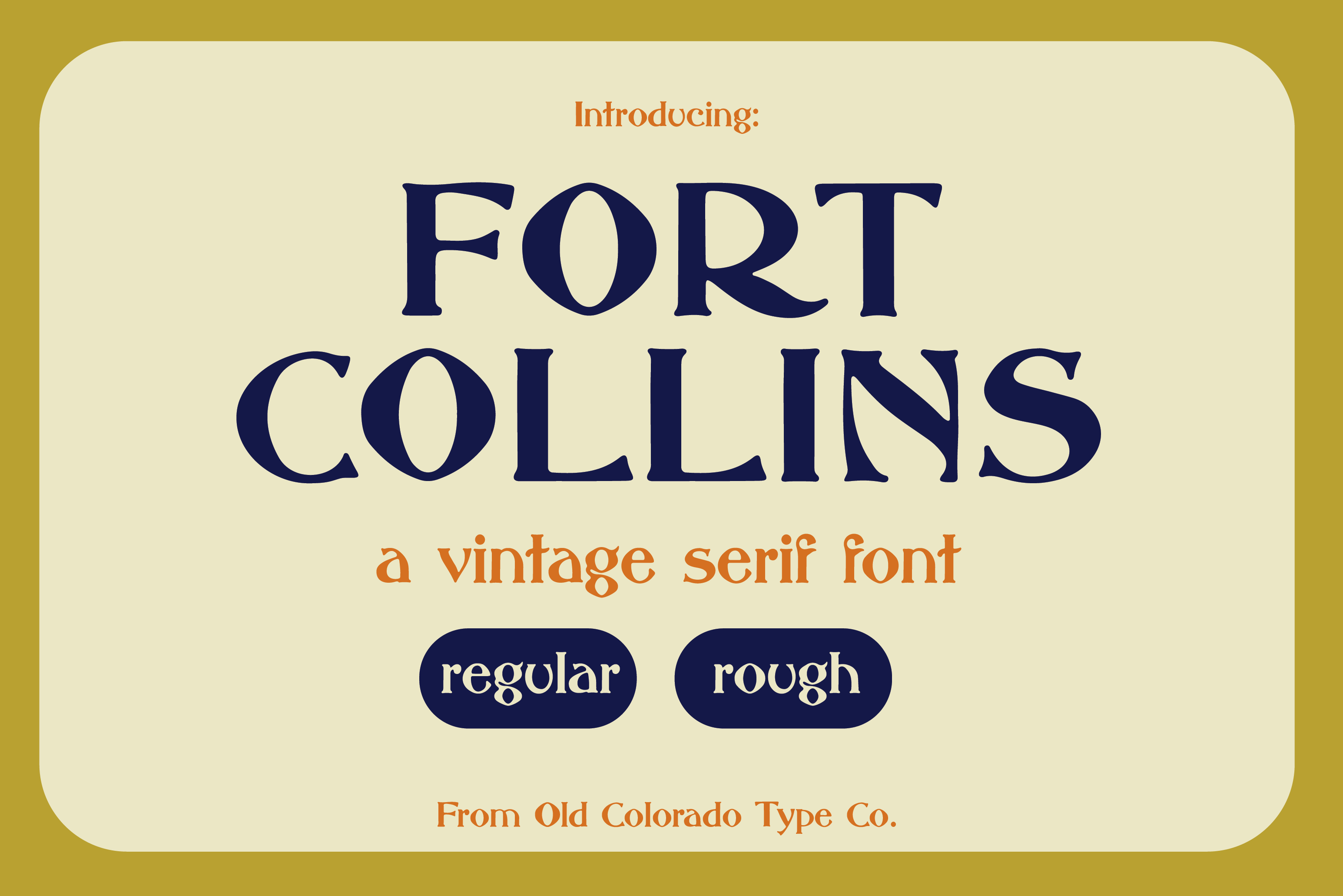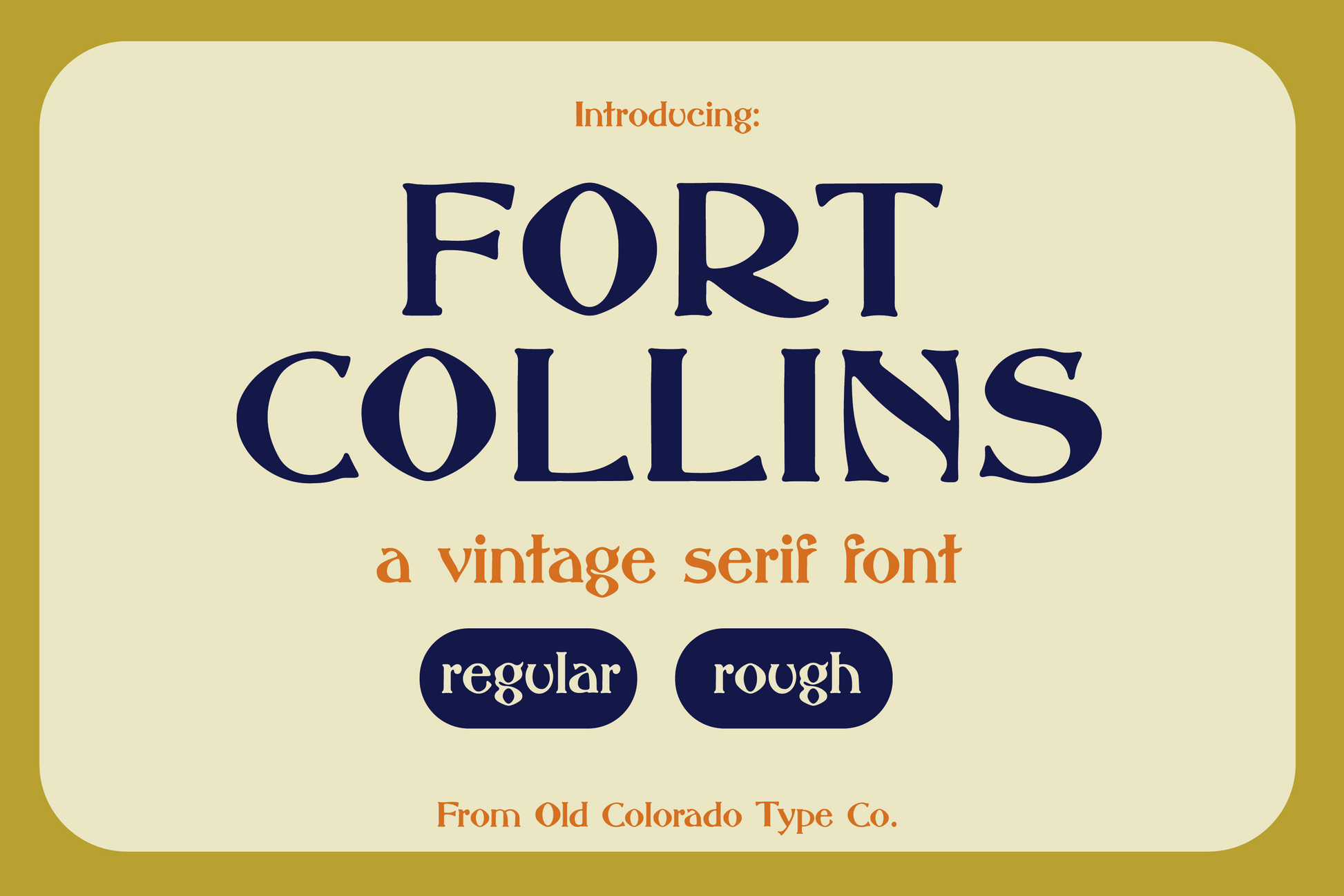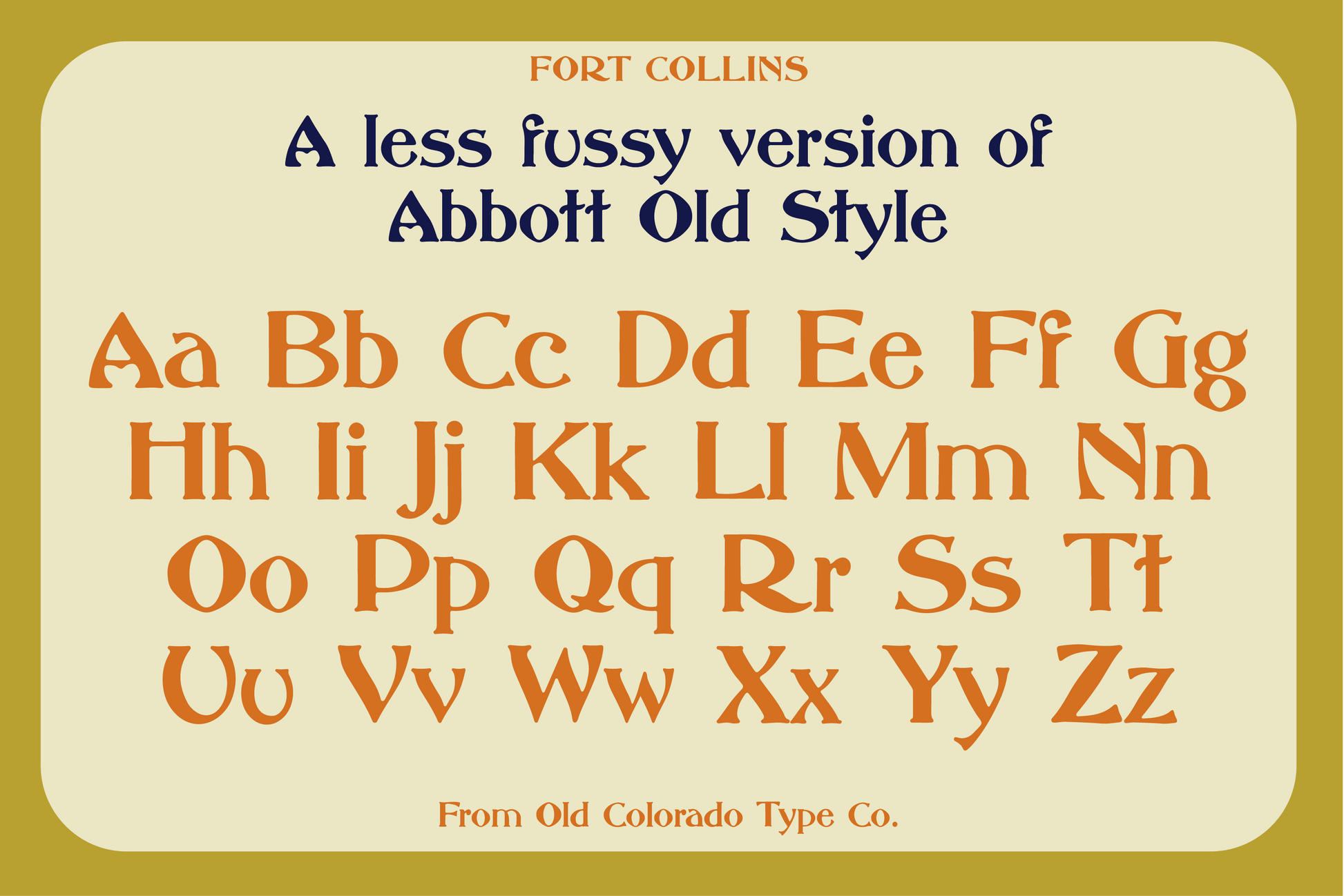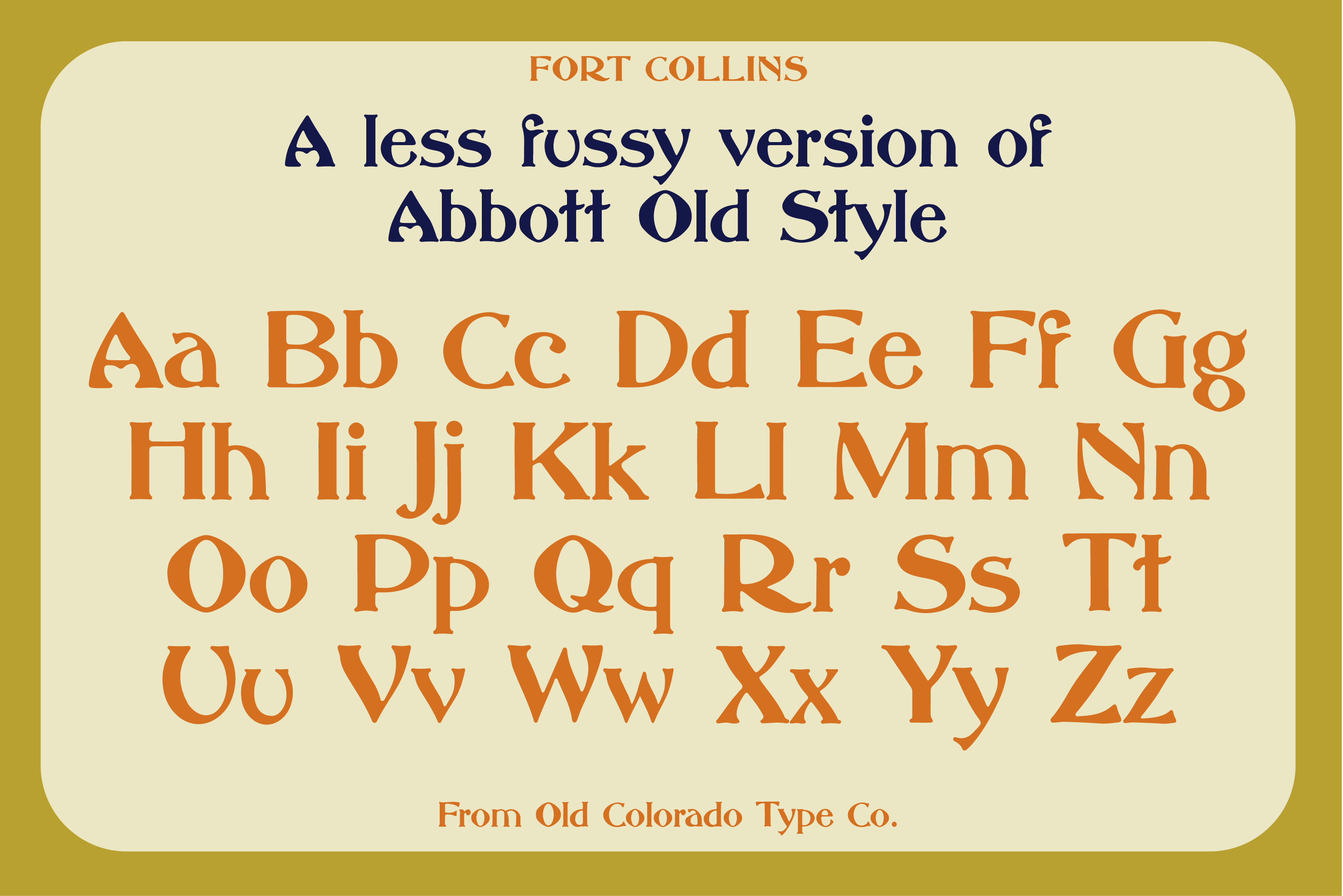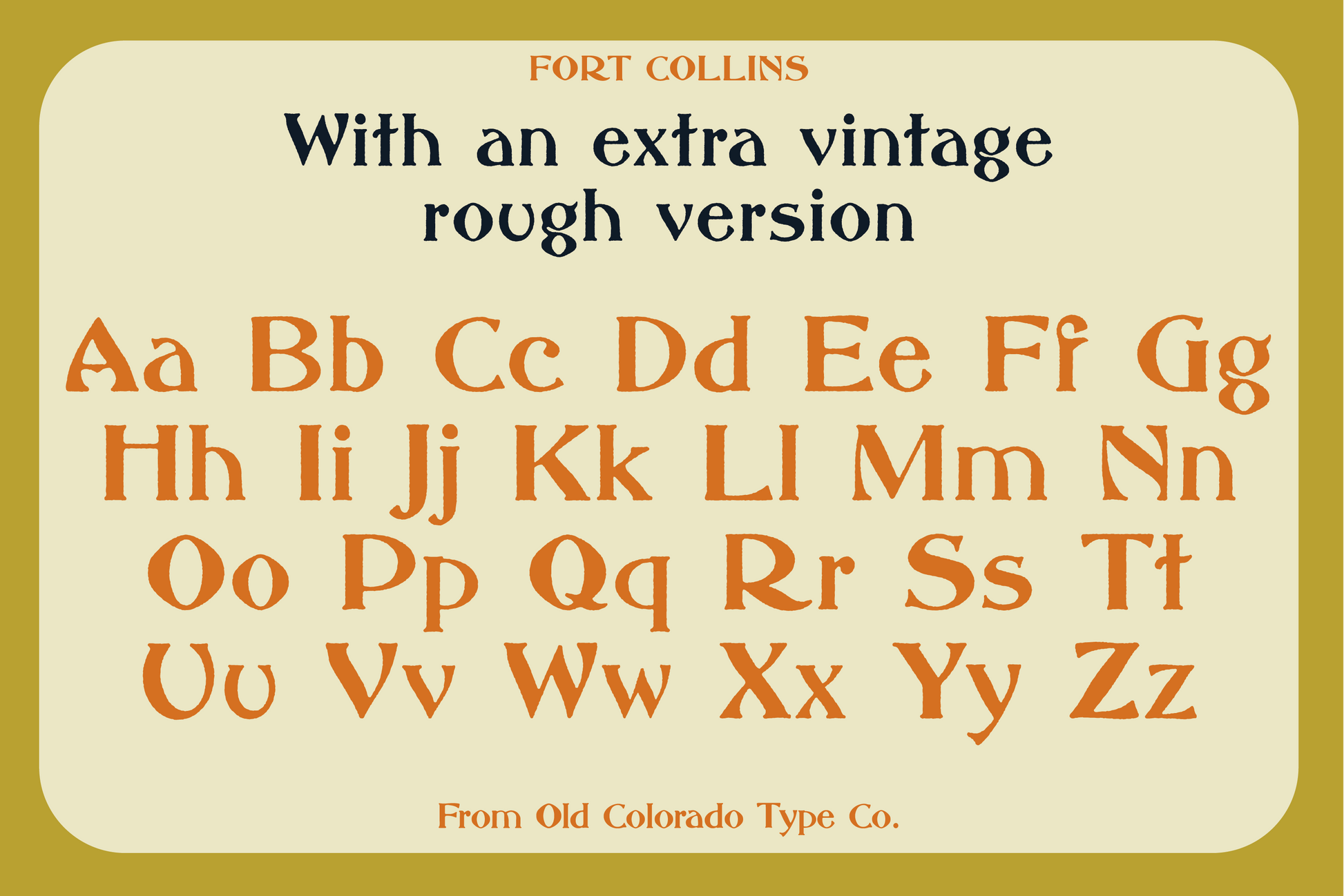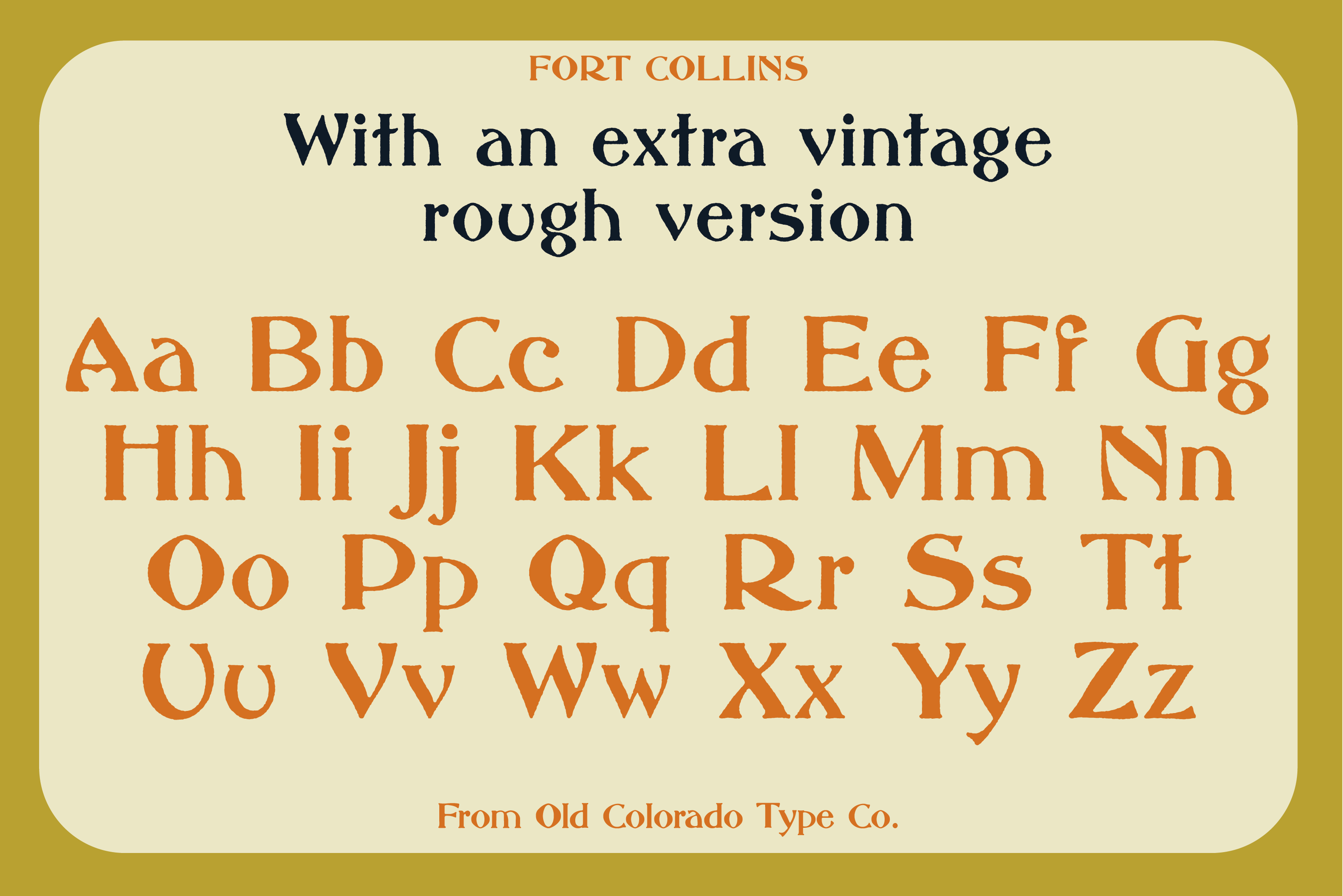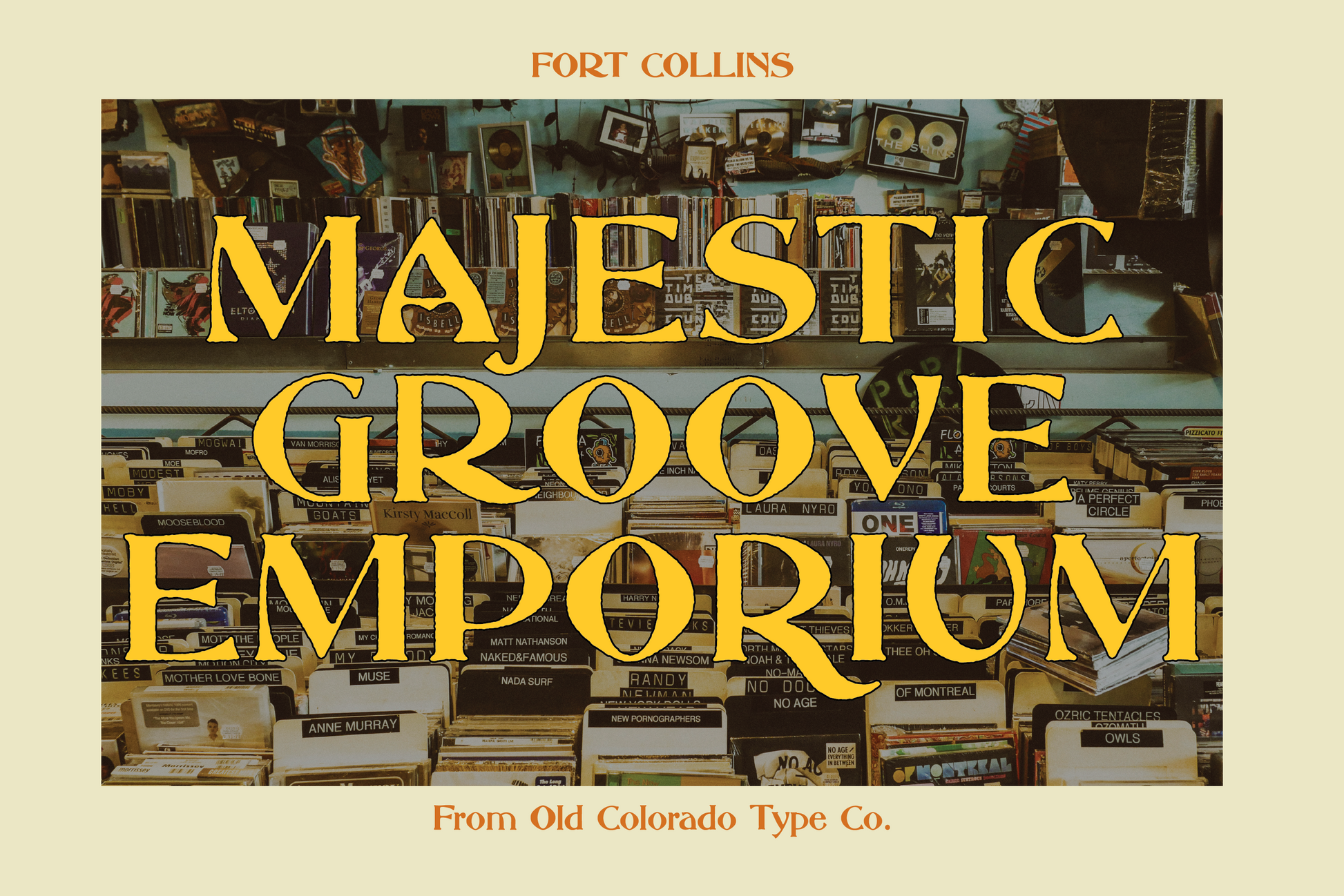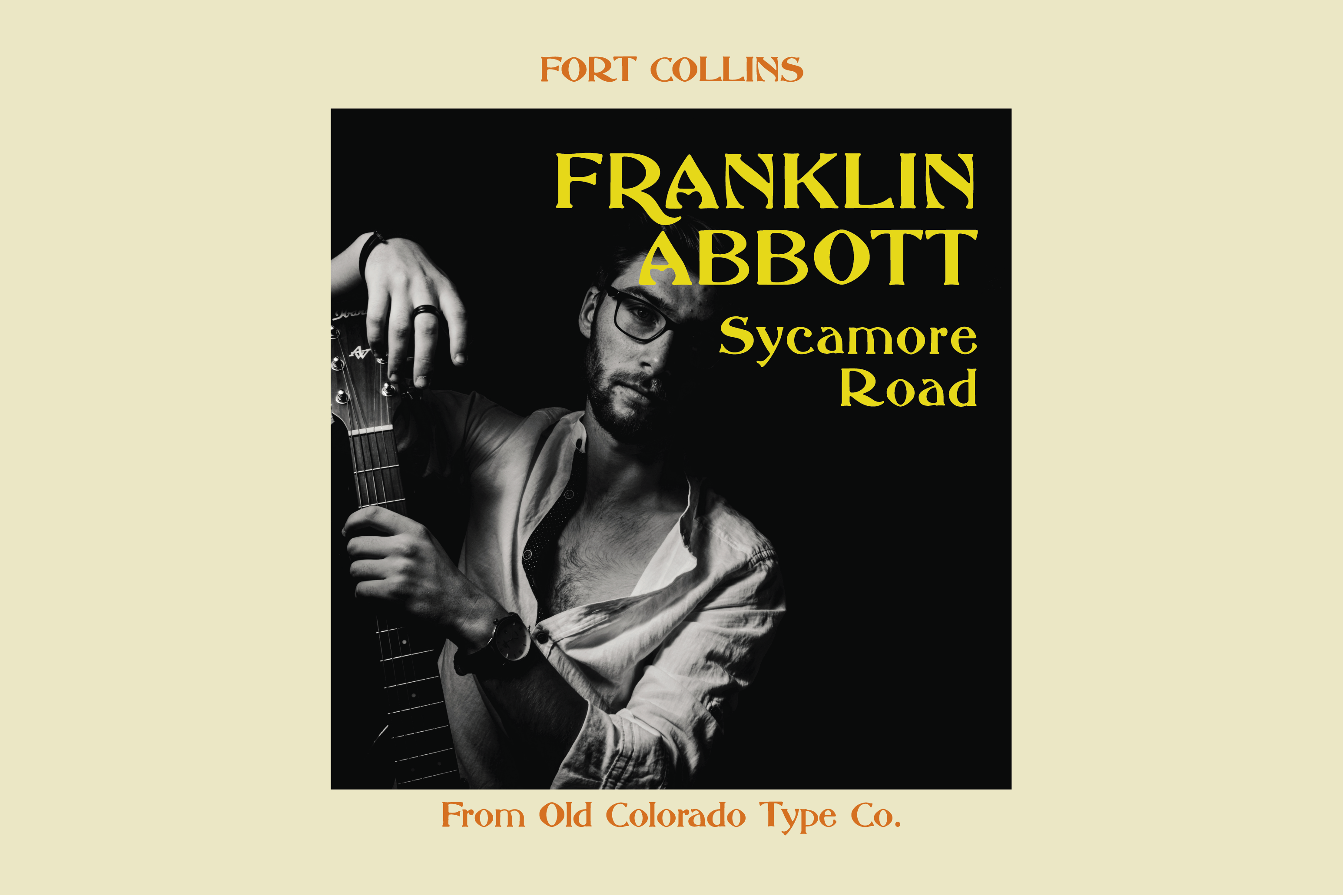
Fort Collins Typeface
My version of my favorite typeface Abbot Old Style. I tweaked a lot of the lowercase letters to be less "pointy" and gave the whole thing a more hand drawn feel. Old Colorado Type Co. is the moniker for my side quest as a type designer :)